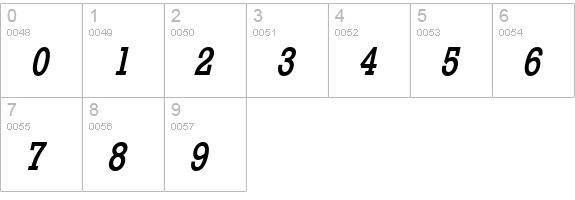
Geo 986 Condensed Bold Italic is a strong, high-contrast, condensed-width, italic variant in the Geo typeface family \xE2\x80\x94 well suited to headlines, attention-grabbing titles, and strong calls-to-action.
The Geo 986 Condensed Bold Italic font is a versatile and modern typeface that exudes elegance and sophistication. Its condensed design adds a touch of sleekness, while the bold italic style commands attention and makes a bold statement. Perfect for creating eye-catching headlines, titles, and branding materials, this font is sure to elevate any design project to the next level. And the best part? This high-quality font is available for free download at FontsMarket.com. Take advantage of this amazing opportunity to enhance your creative projects with the Geo 986 Condensed Bold Italic font today!